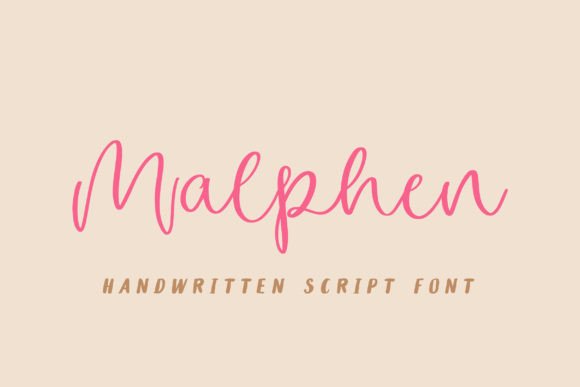
Are you looking for the perfect font to add a touch of romance and sophistication to your design projects? Look no further than Malphen Font, the best font for titles in Canva. This stunning script font, created by Bellinghamtype, features delicate, flowing lines and intricate, hand-drawn flourishes that will elevate any design to new heights of elegance.
Whether you're designing wedding invitations, creating high-end branding materials, or working on other projects that require a refined touch, Malphen Font is the perfect choice. Its graceful design evokes a sense of romance and refinement that is sure to captivate your audience and leave a lasting impression.
But Malphen Font isn't just beautiful - it's also incredibly versatile. With a wide range of weights and styles, it can be used for everything from bold headlines to subtle accents. And with its extensive character set, including a full range of alternates and ligatures, you can customize your designs to suit your exact needs.